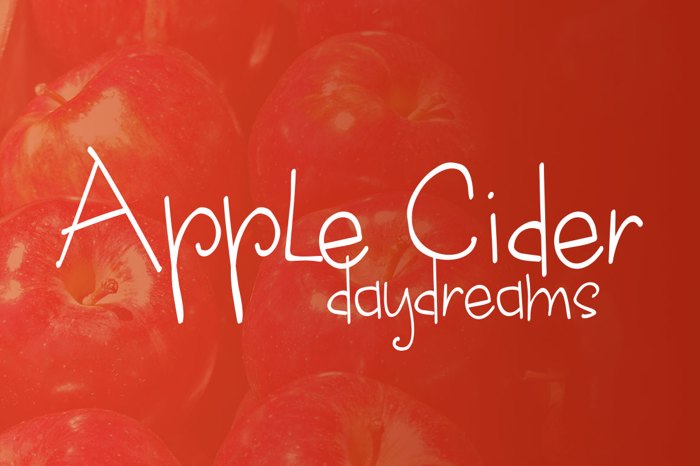
apple cider daydreams Font
Quirky and creative. I like the freestyle, handwritten approach, but I also see that some real though went into the overall design, which is cohesive.